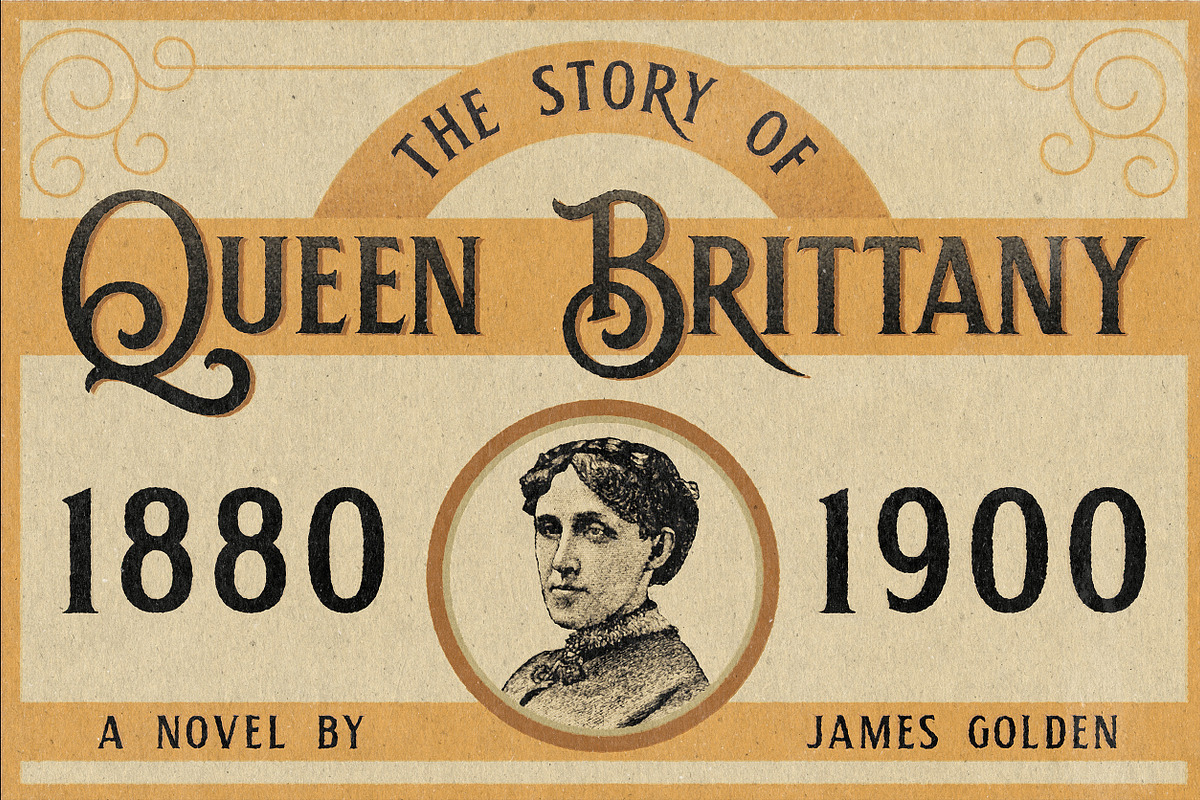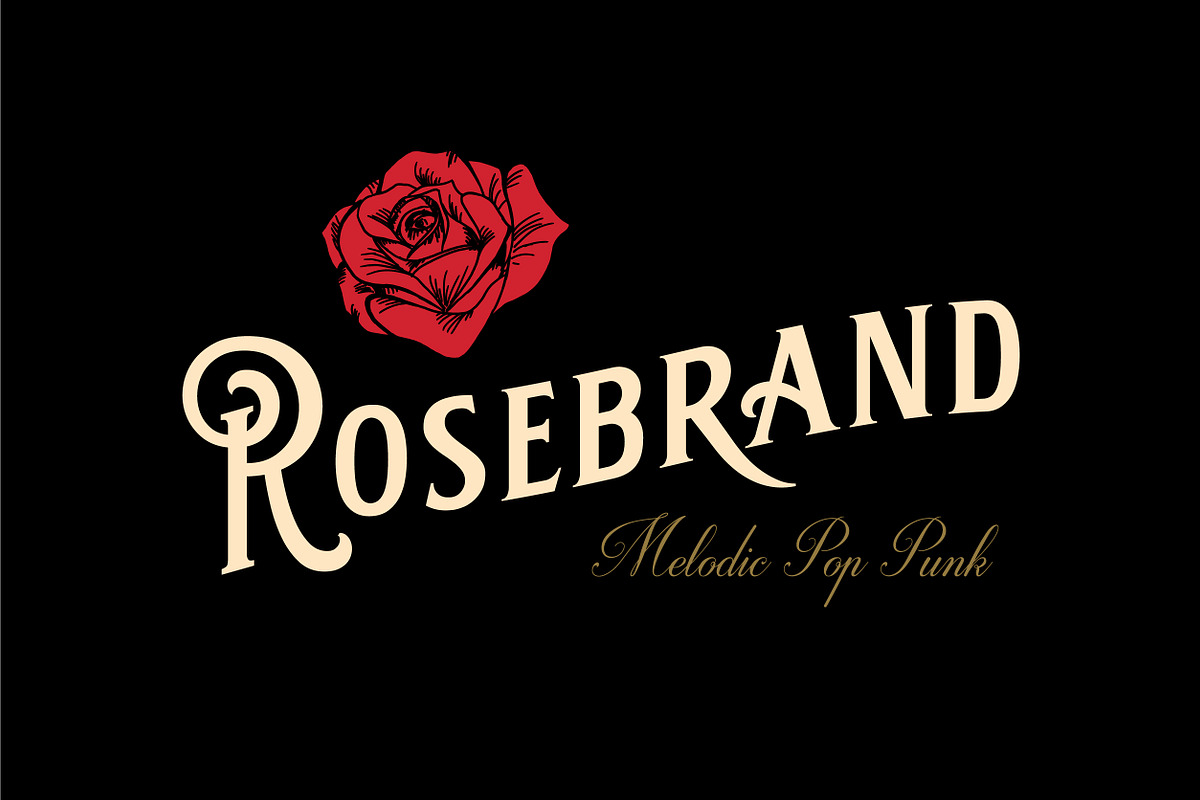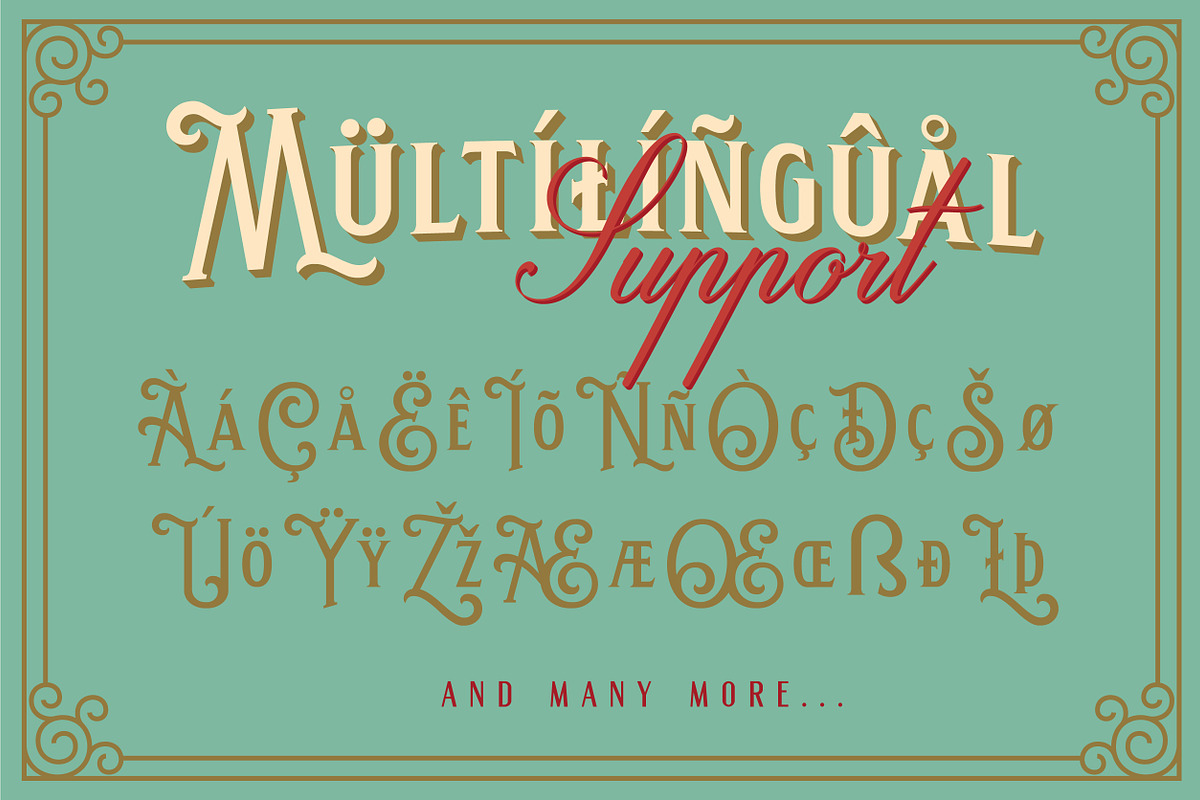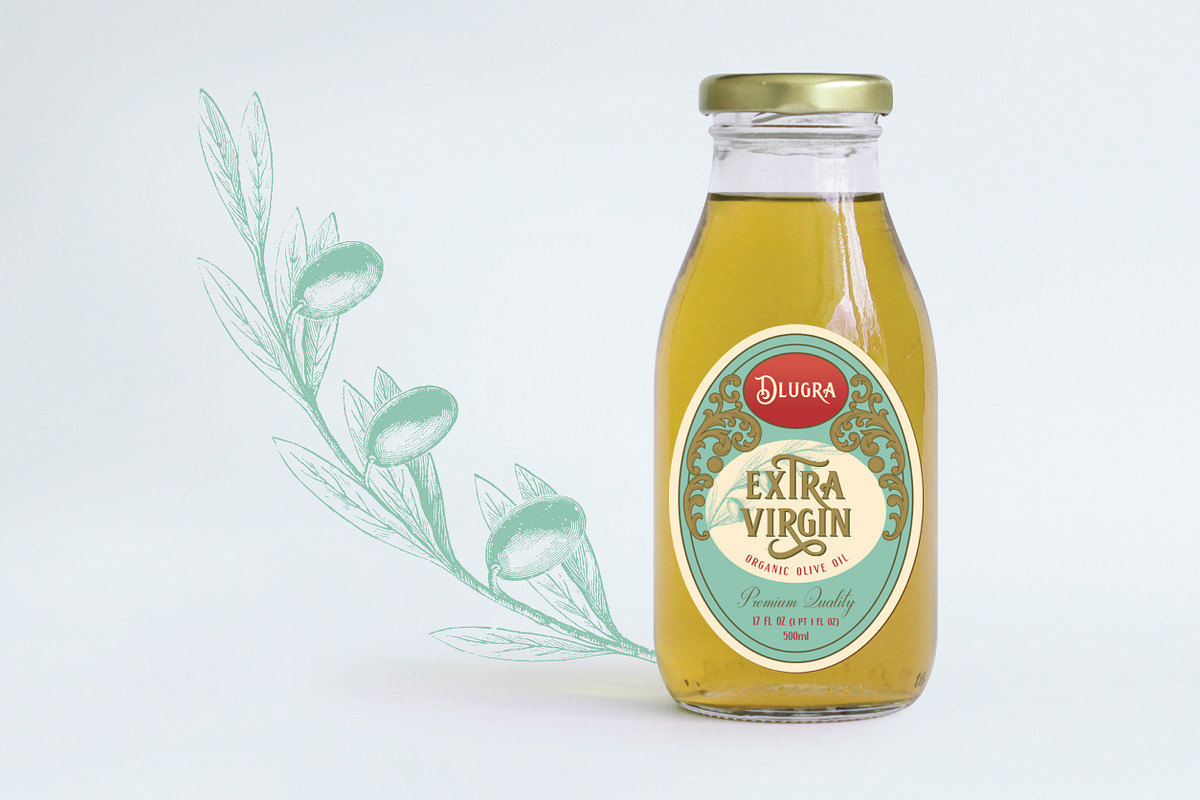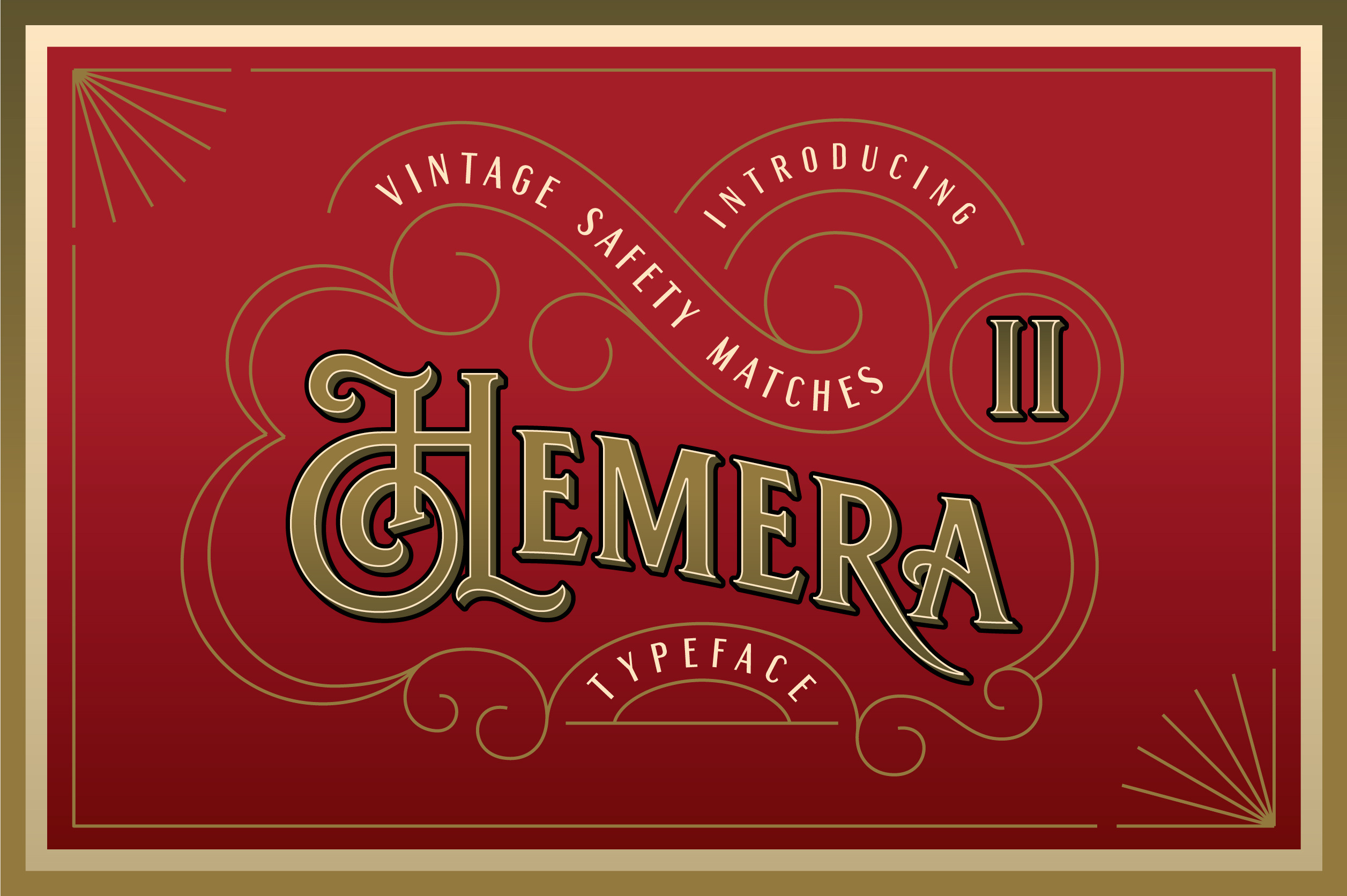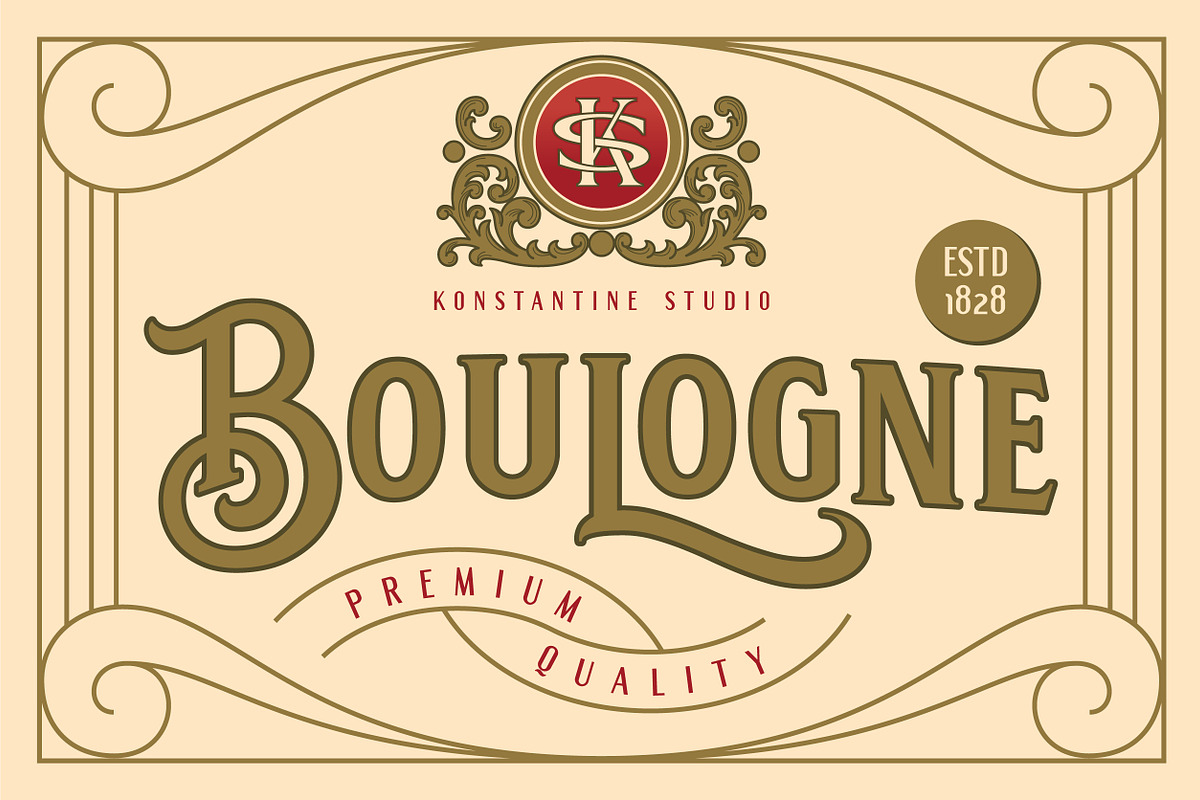
Hemera II - Vintage Decorative Font
After four years now we're ready to the next level of it. Please welcome Hemera II. A sophisticated vintage victorian era fonts, inspired from the old advertising and classic sign back in circa 1800 - 1900s. Perfectly fit for your vintage vibes and classic touch on any branding works. Logo, badges, label, headline, retro decoration, you name it.
Included Uppercase, Lowercase, Numbers & Punctuations, Multilanguage Support, and some alternative letters of Lowercase.
Language Support : Danish, Dutch, English, Filipino, Finnish, French, Galician, German, Icelandic, Indonesian, Irish, Italian, Norwegian Bokmål, Norwegian Nynorsk,Portuguese, Romansh, Spanish, Swahili, Swedish, Swiss German, if you doubt with it please type it out in the text box below, i hope it will support your language too :)